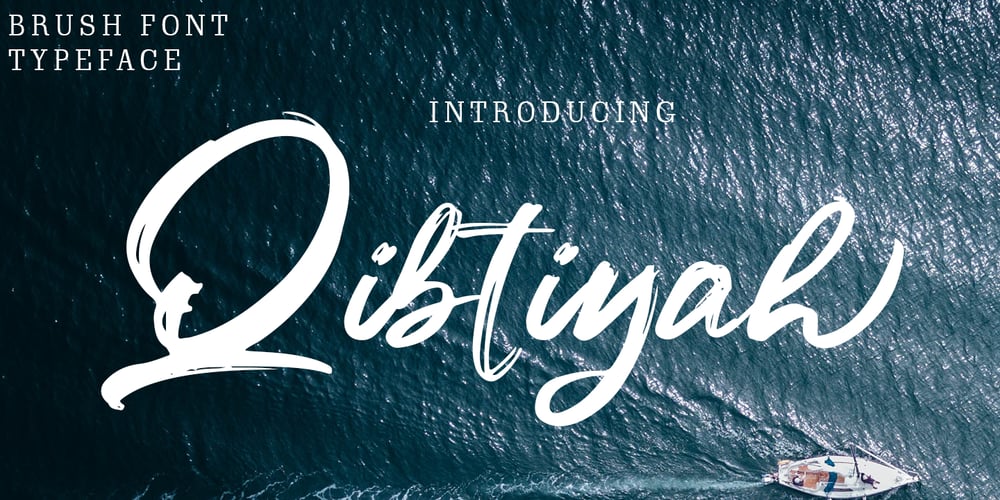
Qibtiyah
Qibtiyah font
Qibtiyah Font Family was designed by Asep Rendi and published by Arendxstudio. Qibtiyah contains 1 styles and family package options. Qibtiyah is a brush script font with distinctive handwritten characters perfect for branding projects, logos, wedding designs, media posts, advertisements, product packaging, product designs, labels, photography, watermarks, invitations, stationery, and any project who need handwritten designs. Features : • Character Set A-Z • Numerals & Punctuations (OpenType Standard) • Accents (Multilingual characters) • Ligature • Swash There it is! I really hope you enjoy it – comments & likes are always welcome and accepted. More importantly, don’t hesitate to send a message if you have a problem or question. Now just read this, go there and make it happen 🙂